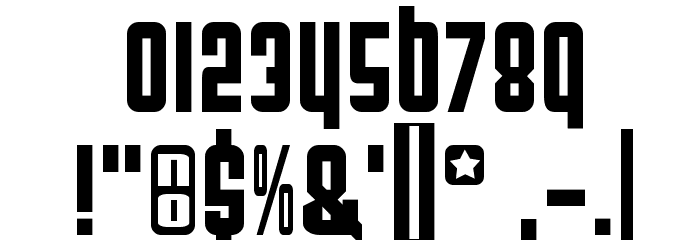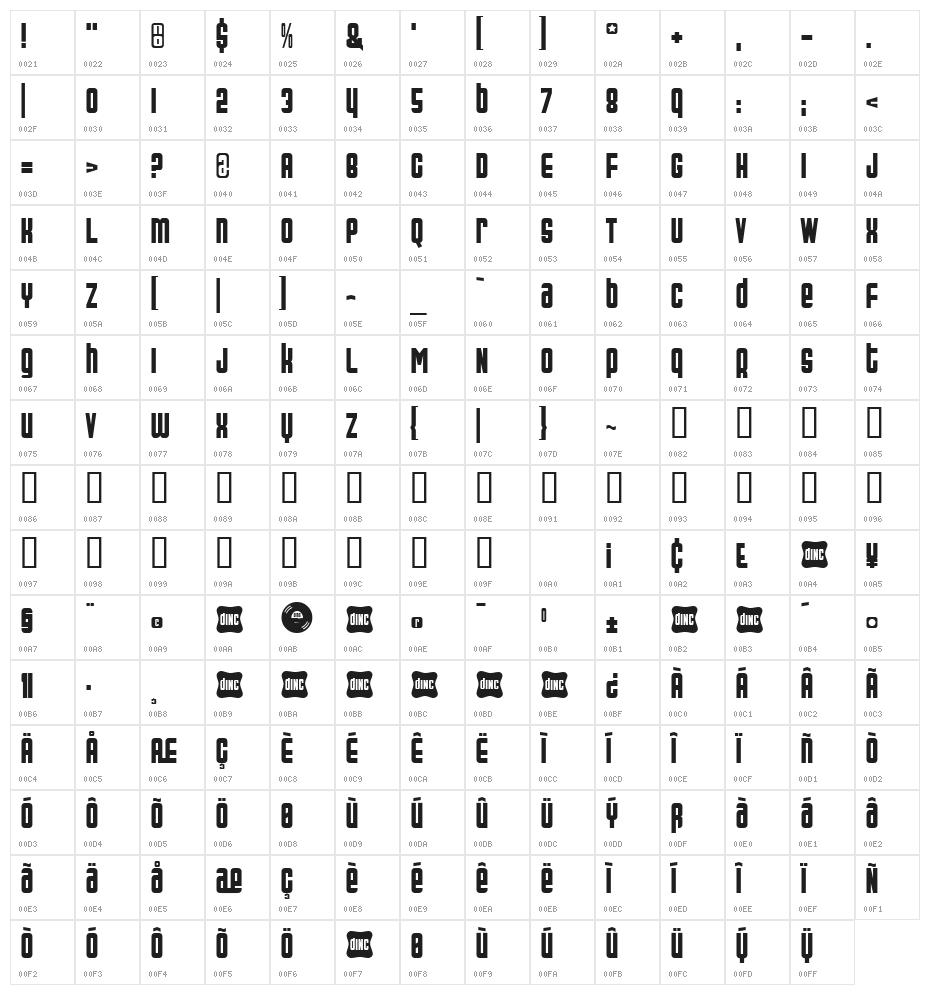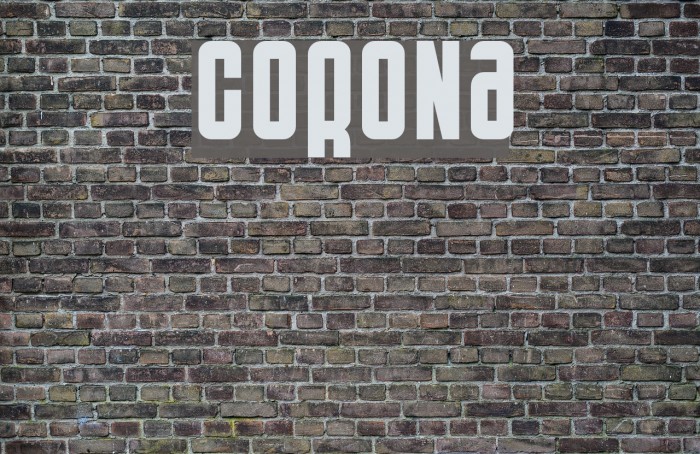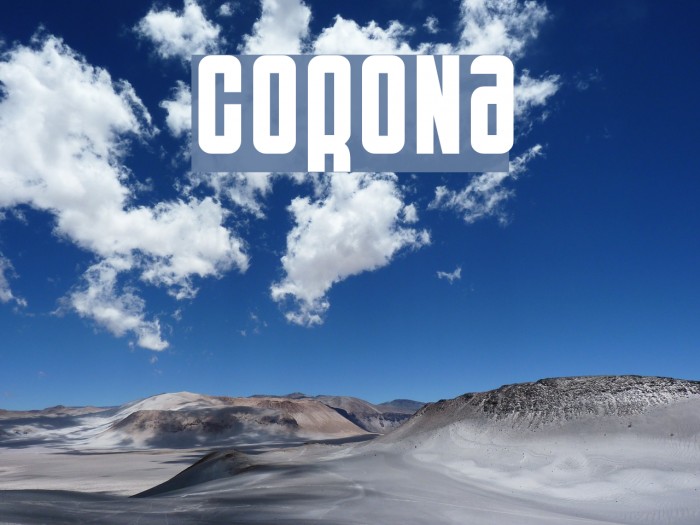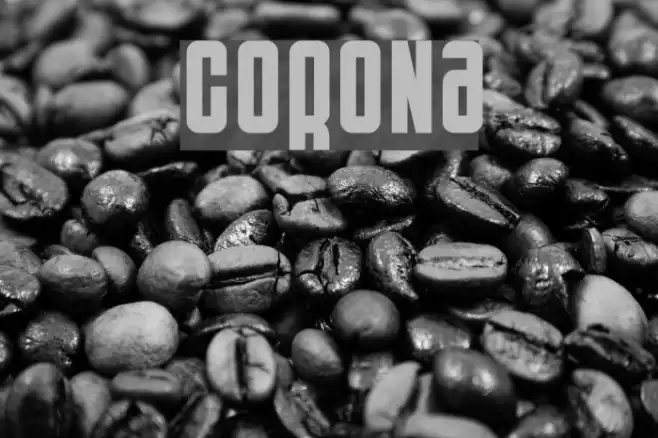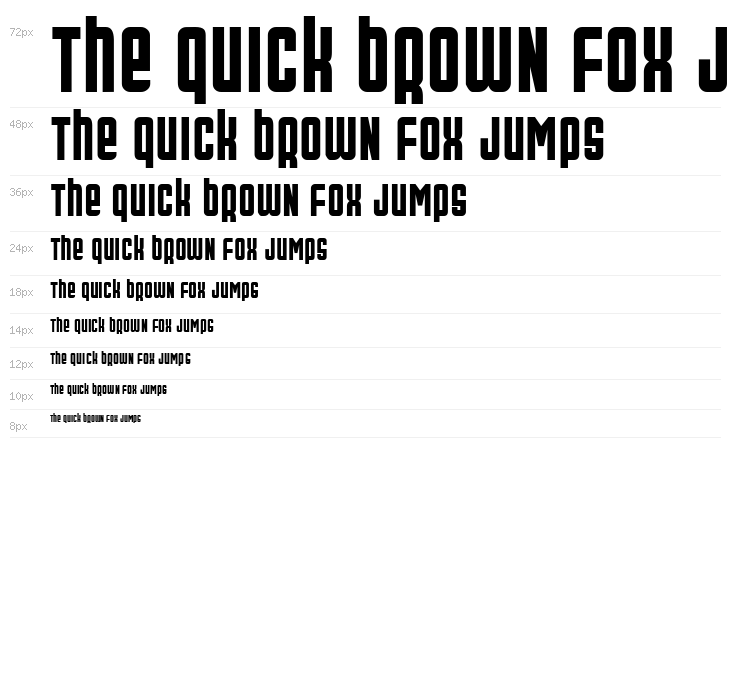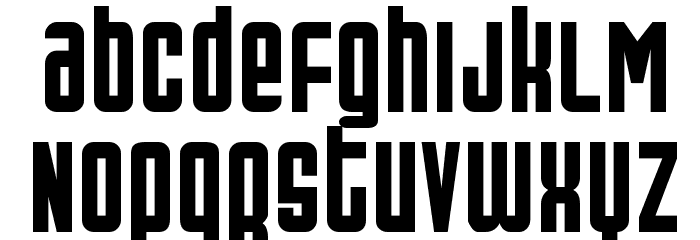
Corona Font
Corona Description
This font features a bold, geometric design with strong, block-like characters. The uppercase letters are uniform in height, creating a cohesive and structured appearance. The lowercase letters maintain the same boldness, with some characters like 't' and 'f' extending slightly above the x-height, adding a touch of uniqueness. The numerals are equally bold and consistent, ensuring readability. Special characters are designed with the same geometric precision, making them stand out. The overall style is modern and impactful, suitable for making a strong visual statement.
| Proposed Projects | Ideal for posters, headlines, branding, and any project requiring a strong visual impact. |